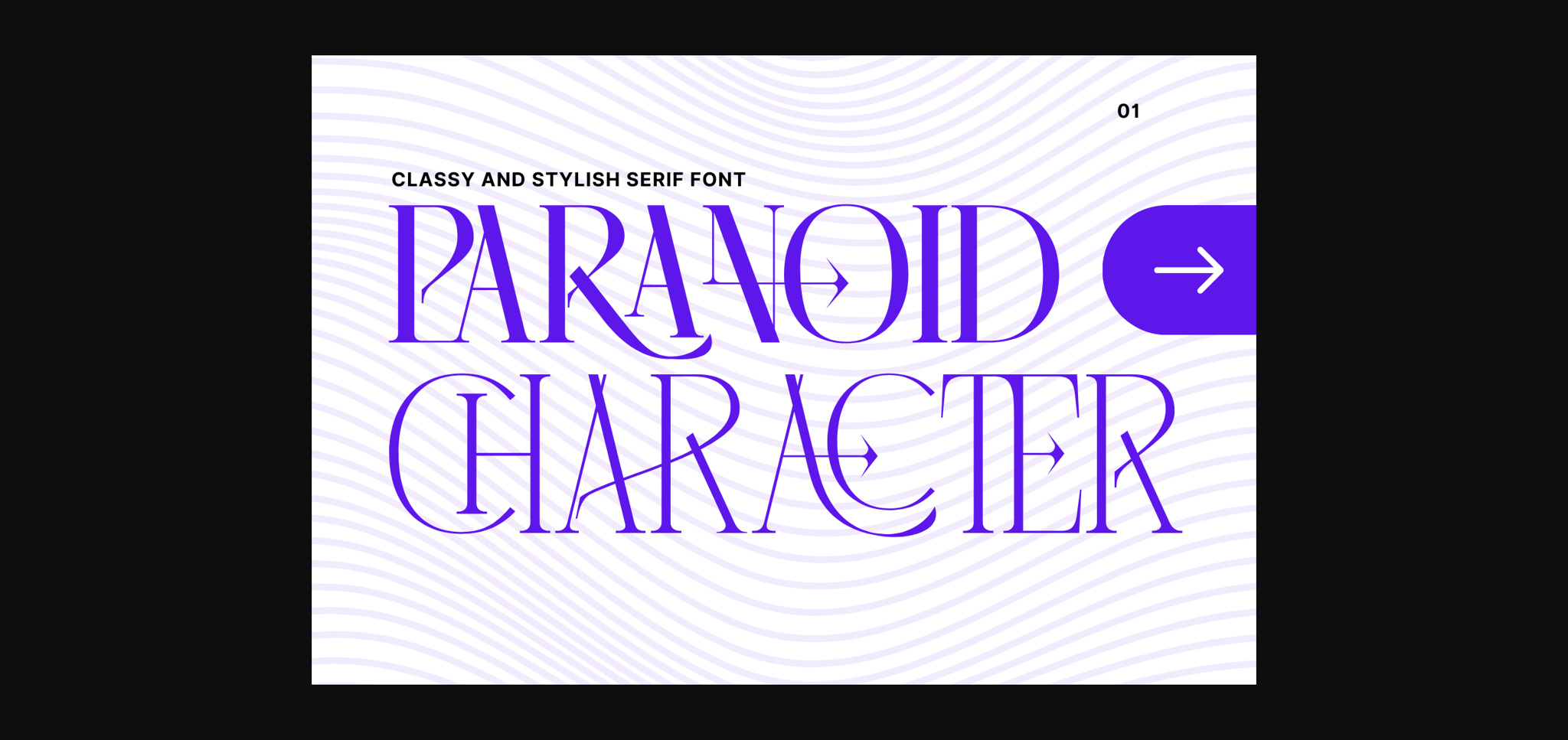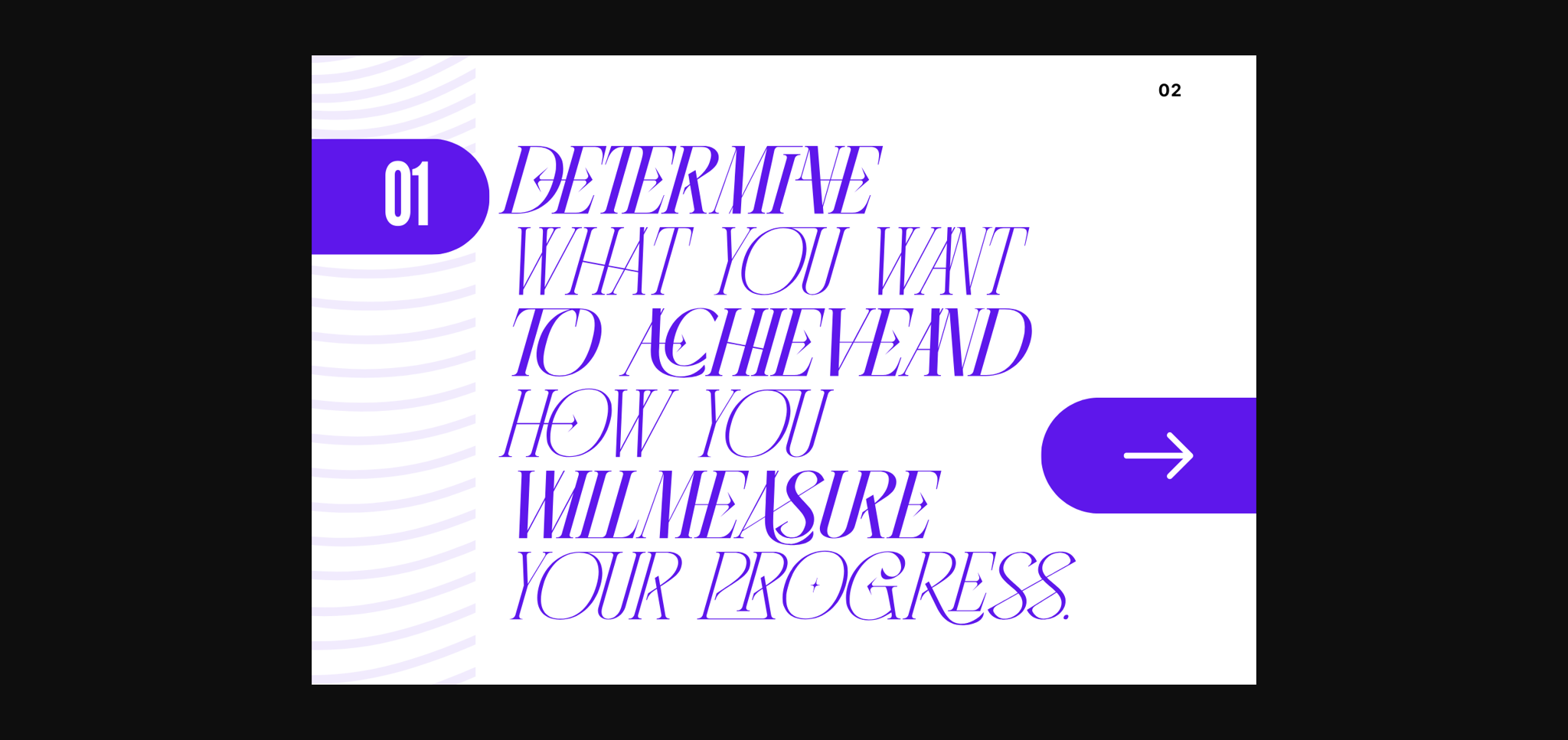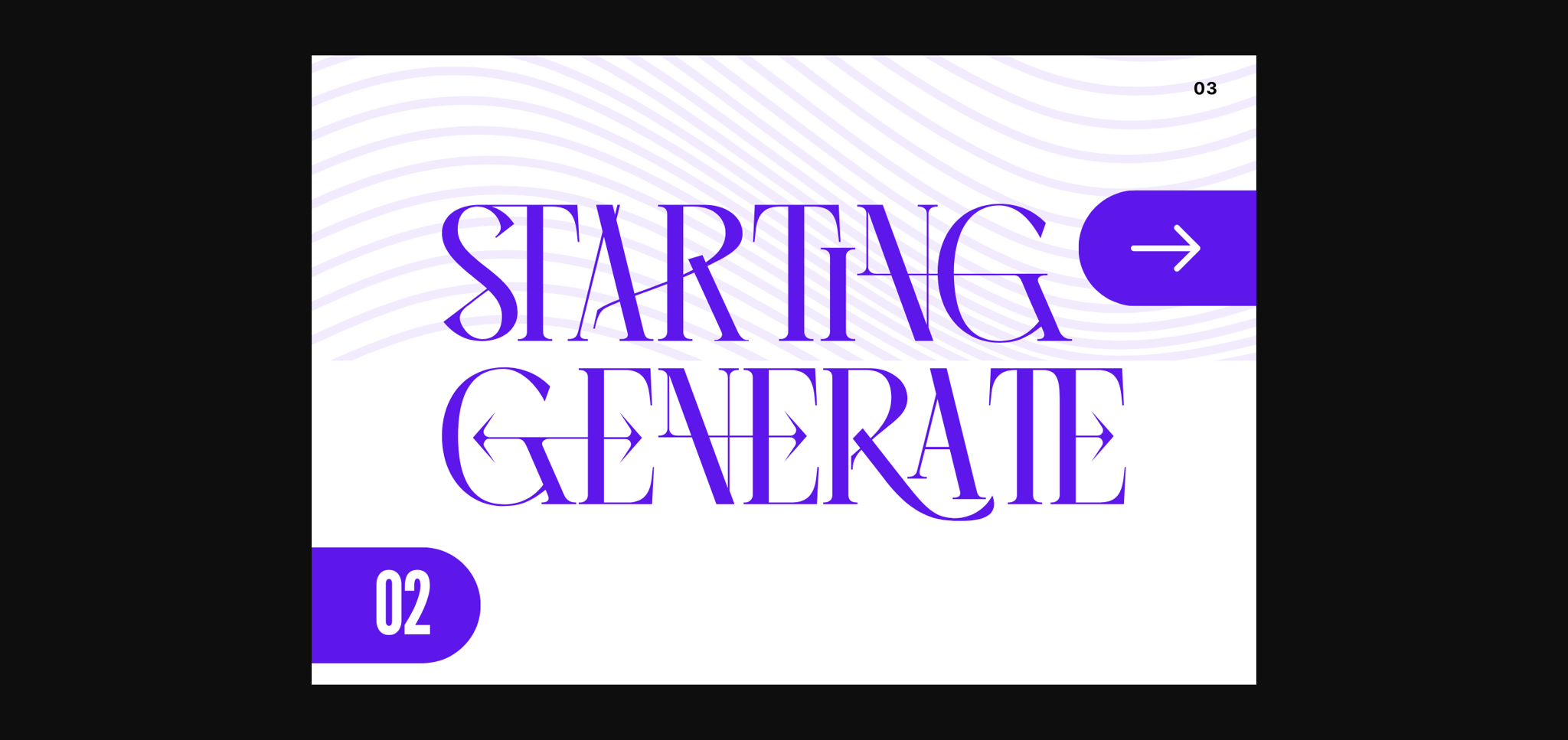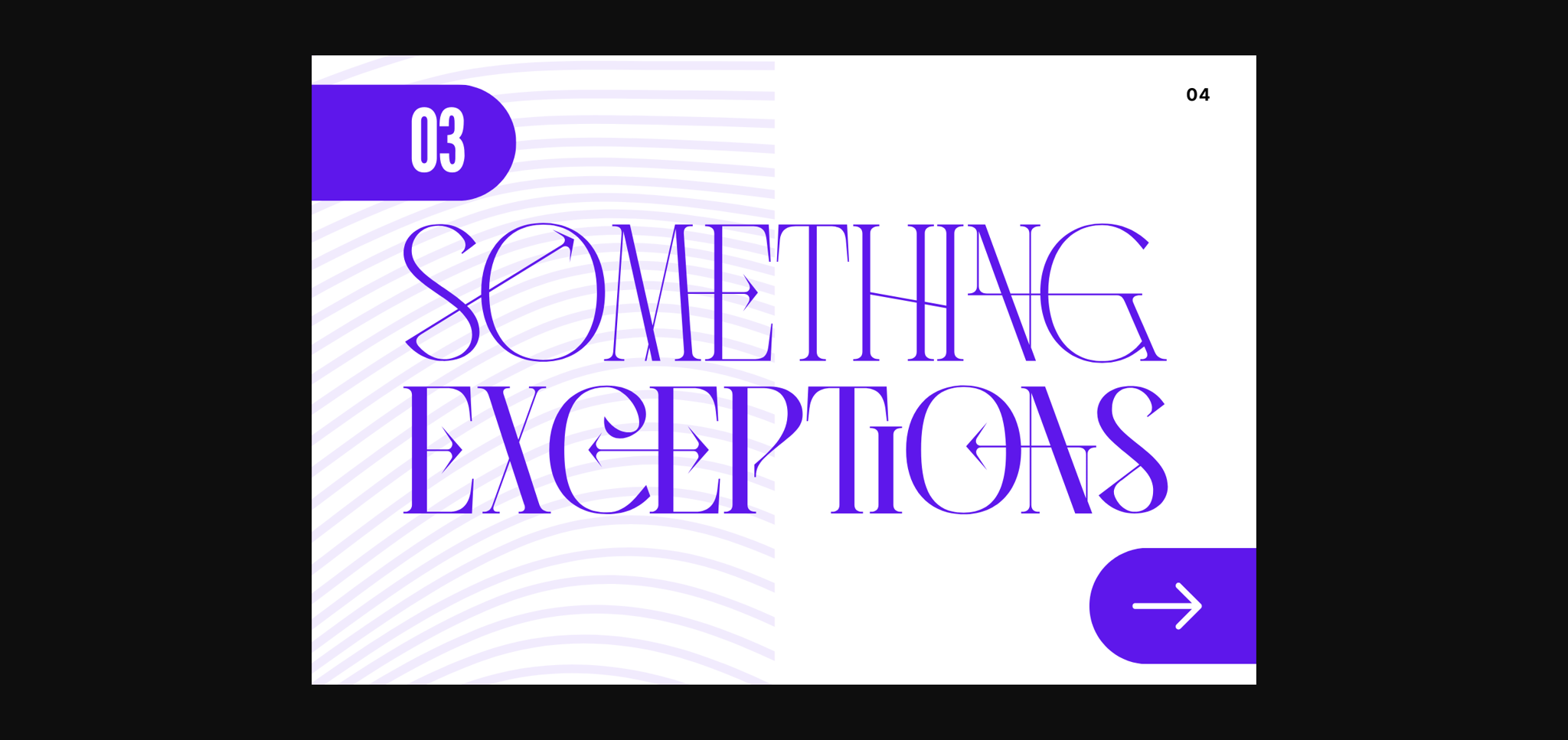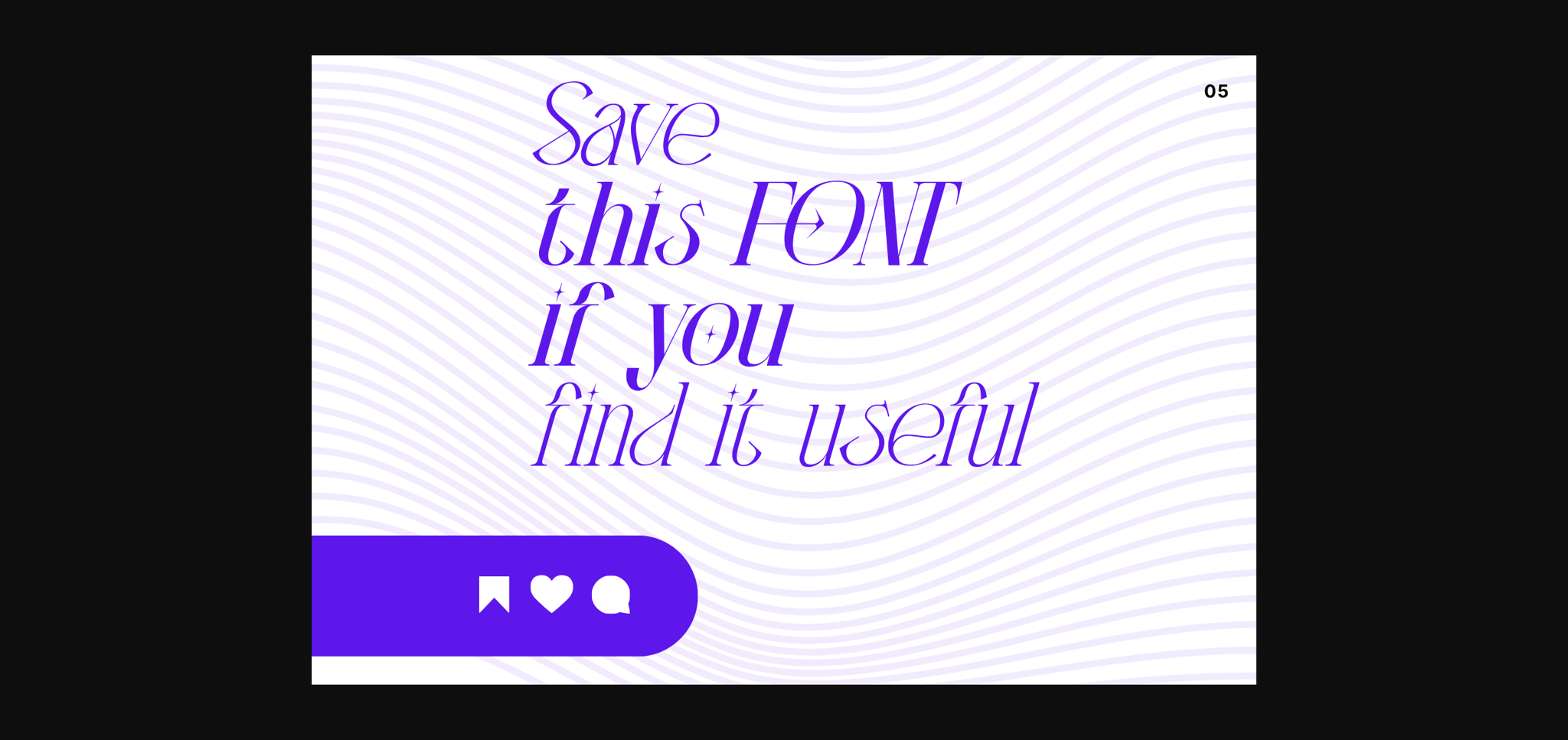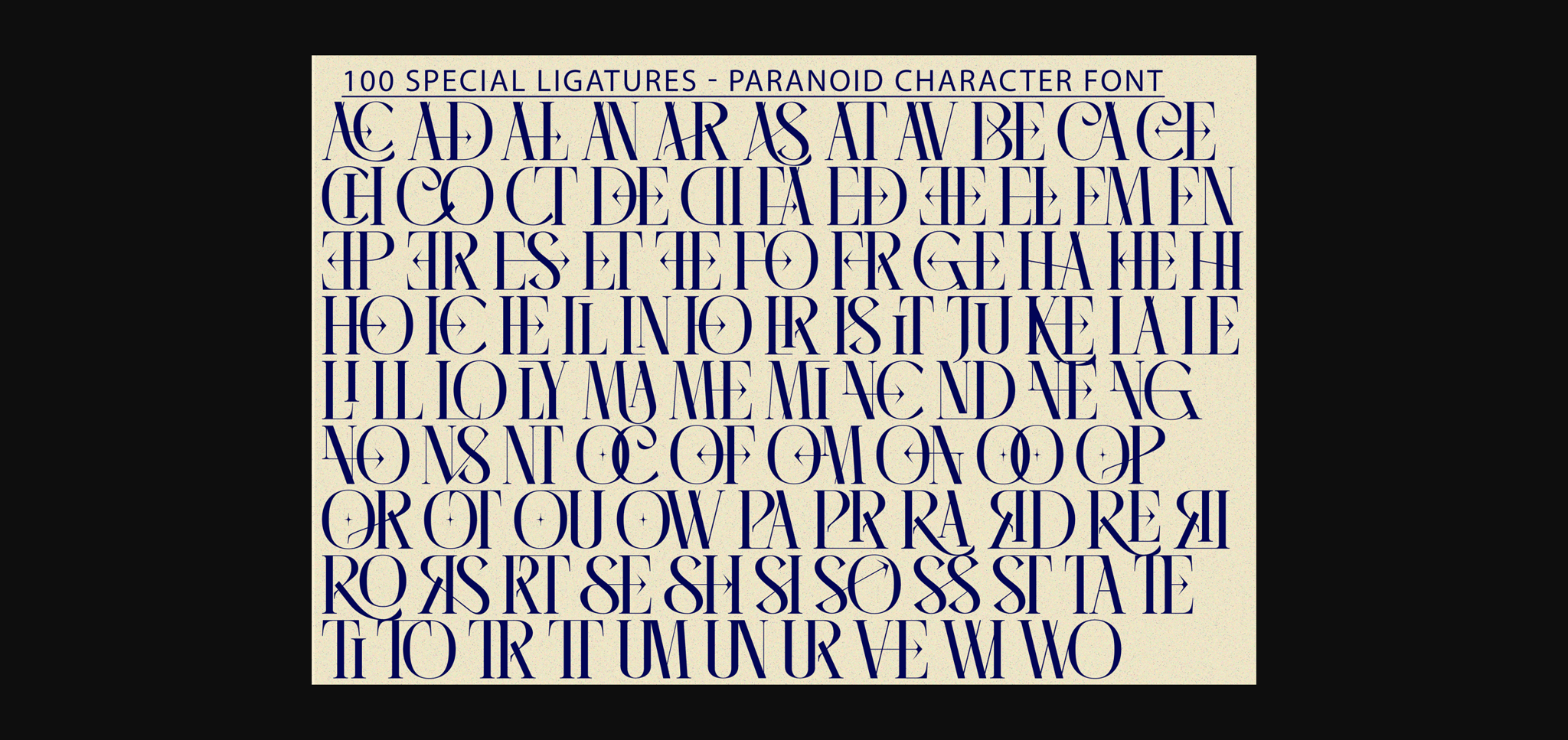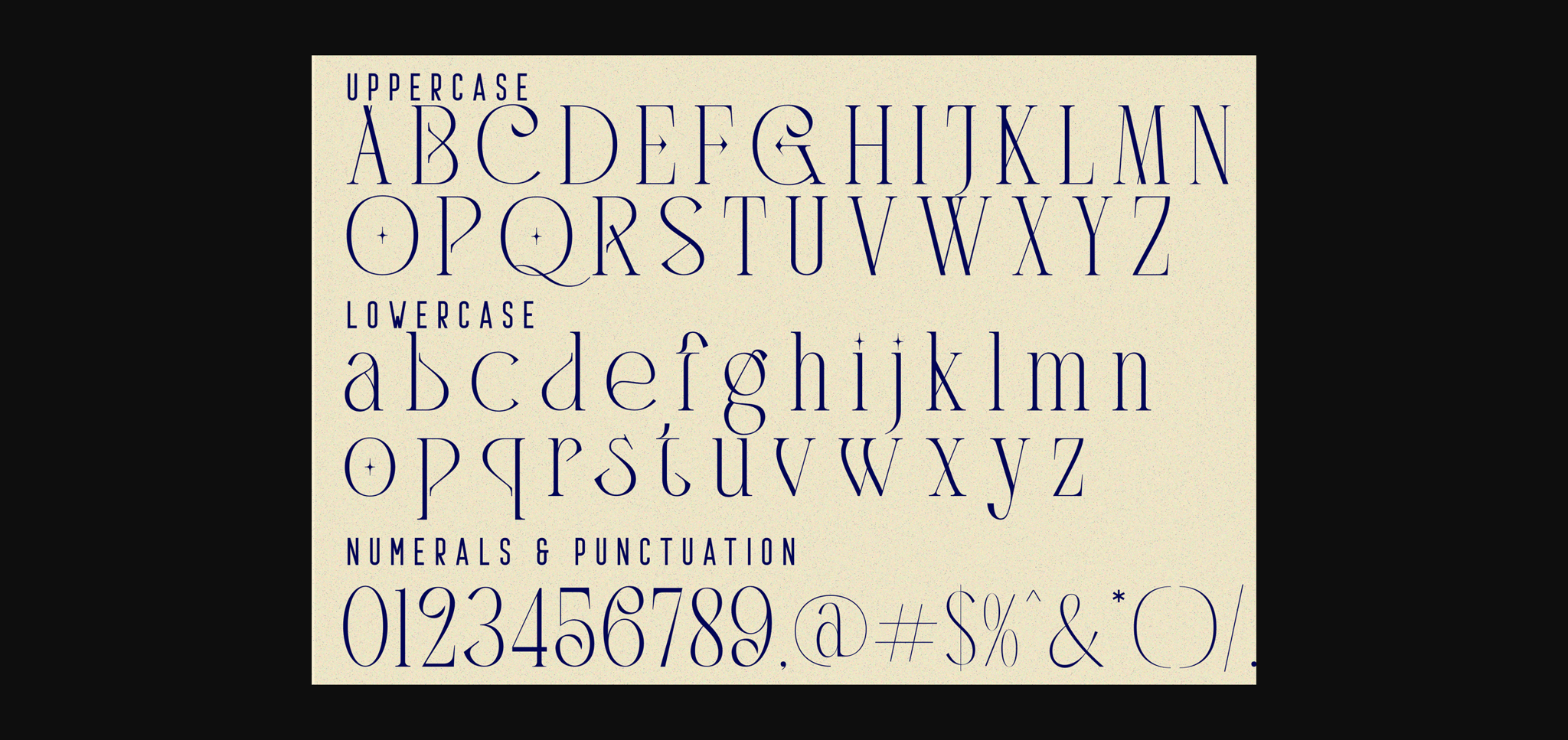
Paranoid Character Font
PARANOID CHARACTER FONT is a stylish and modern serif font with a lot of flair. It is a high-contrast version. both contemporary and nostalgic and works well for logos, headlines, and pull quotes. It matches beautifully with a simple sans-serif or light script font. Perfectly suited for branding projects, logos, social media posts, advertisements, product packaging, labels, photography, watermarks, stationery, and any projects seeking a touch of elegance, luxury, classic, aesthetic, and any sophisticated vibe.
PARANOID CHARACTER was built with OpenType features and includes 100 ligatures, alternates, numbers, and punctuation, and it also supports other languages.